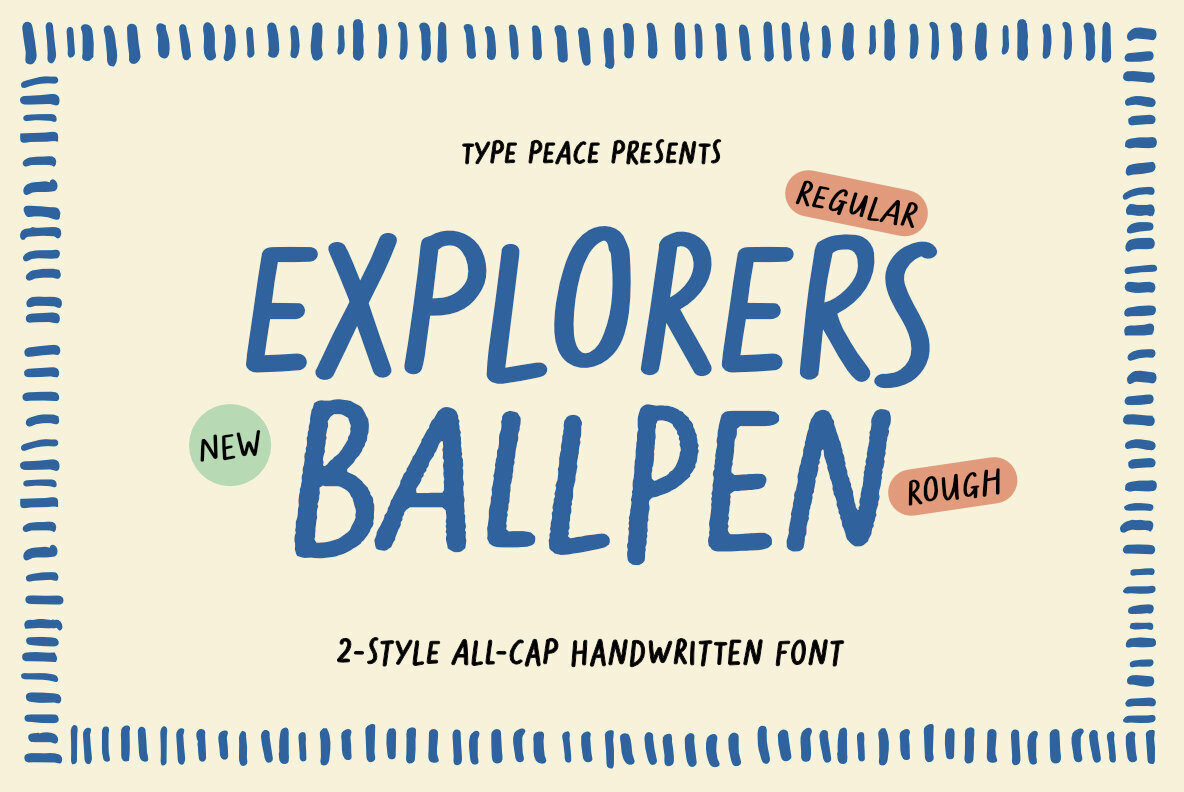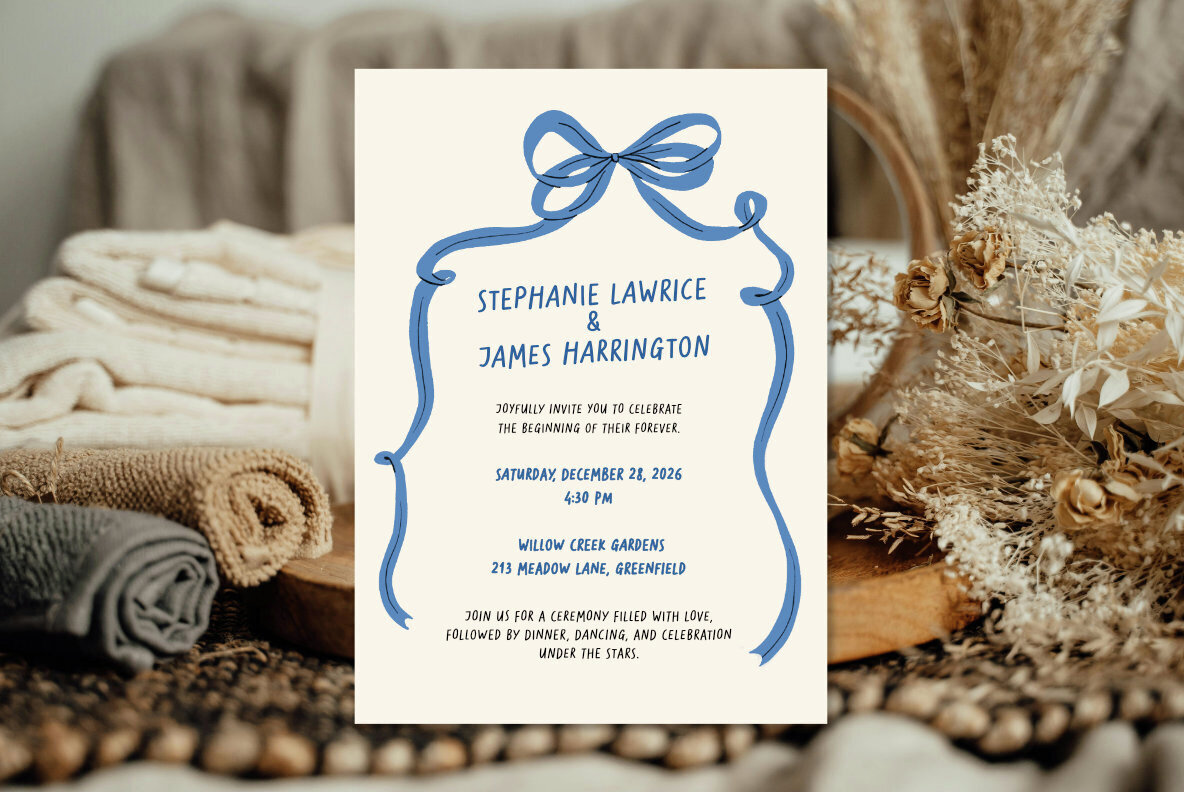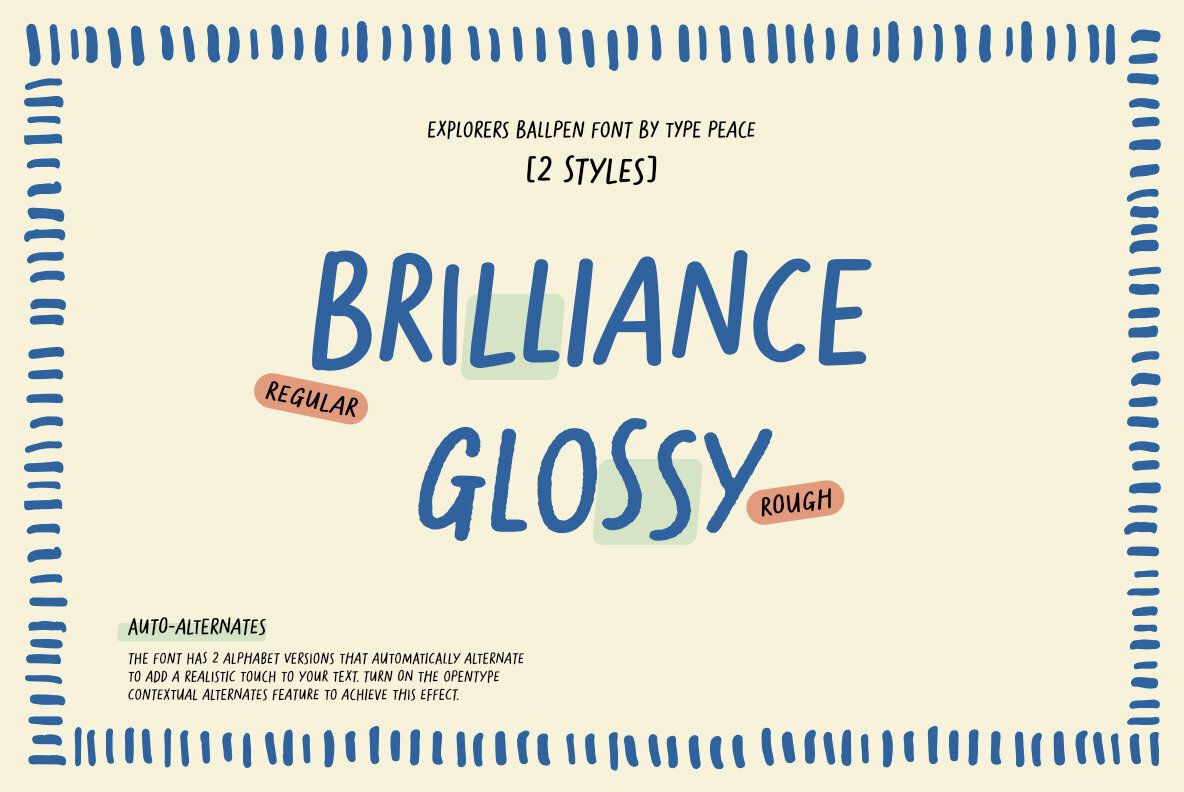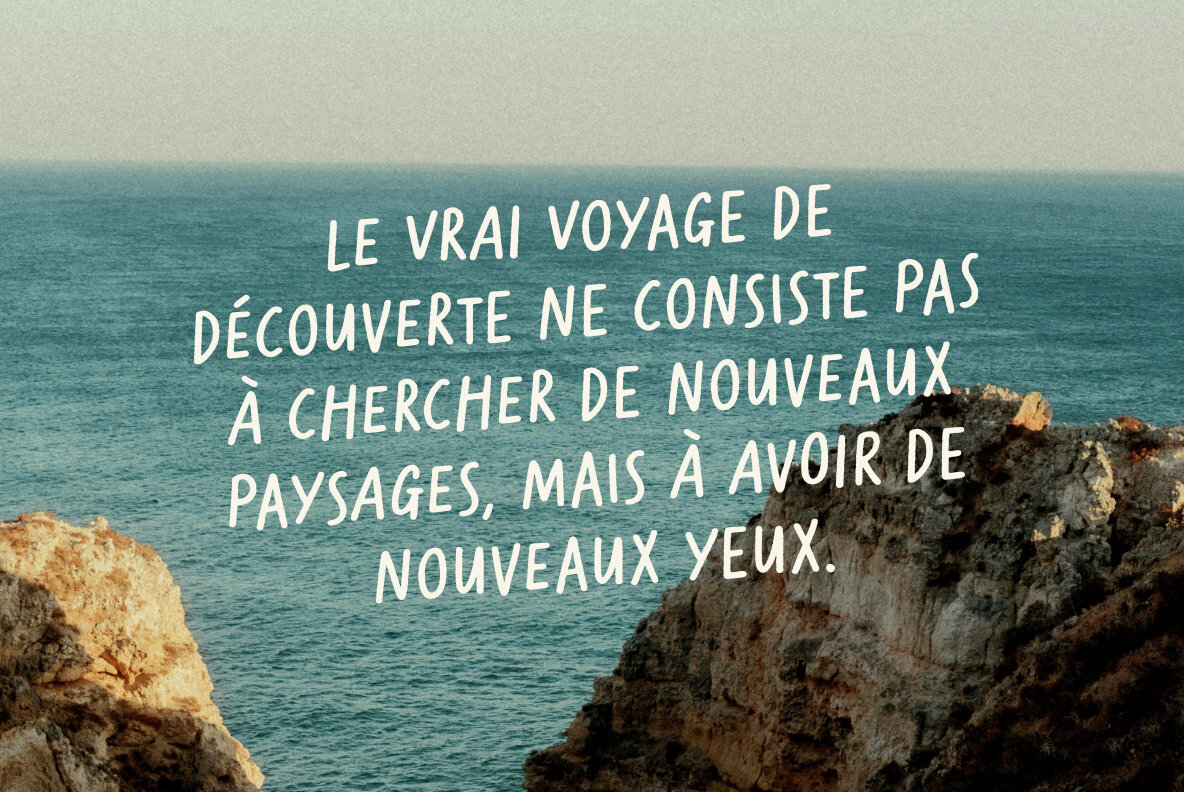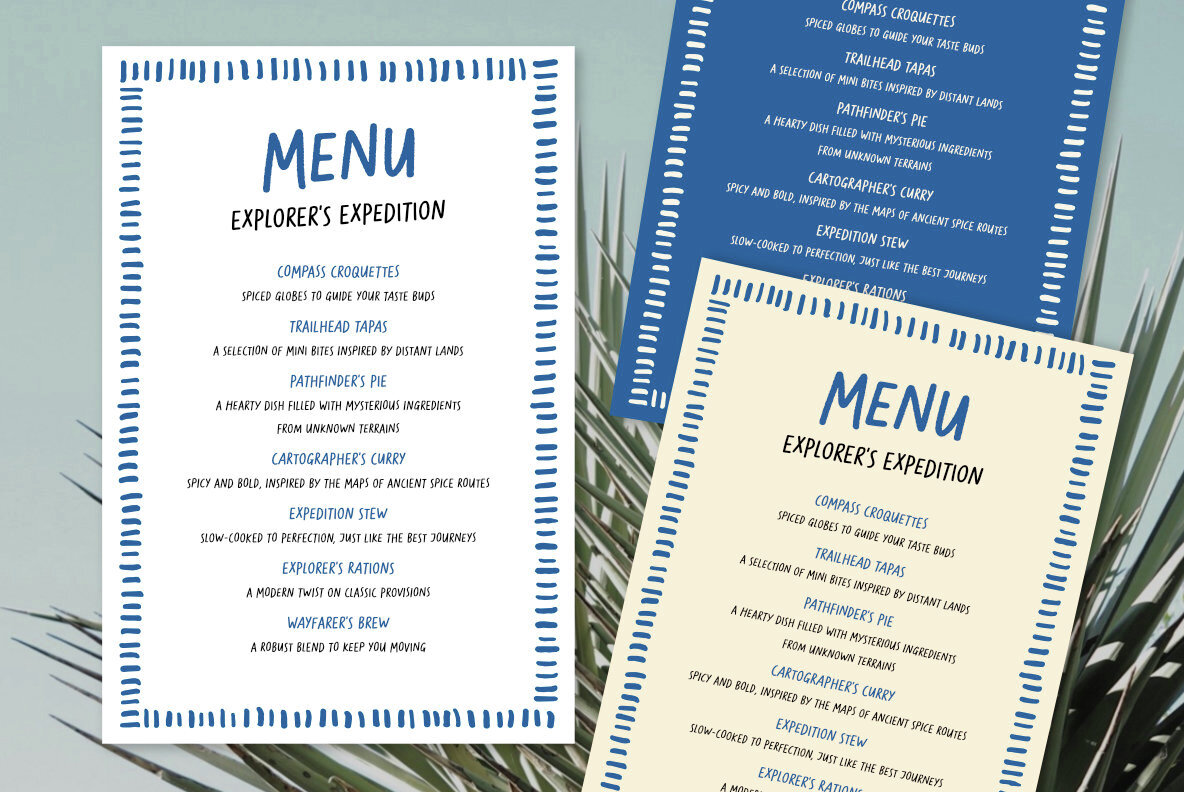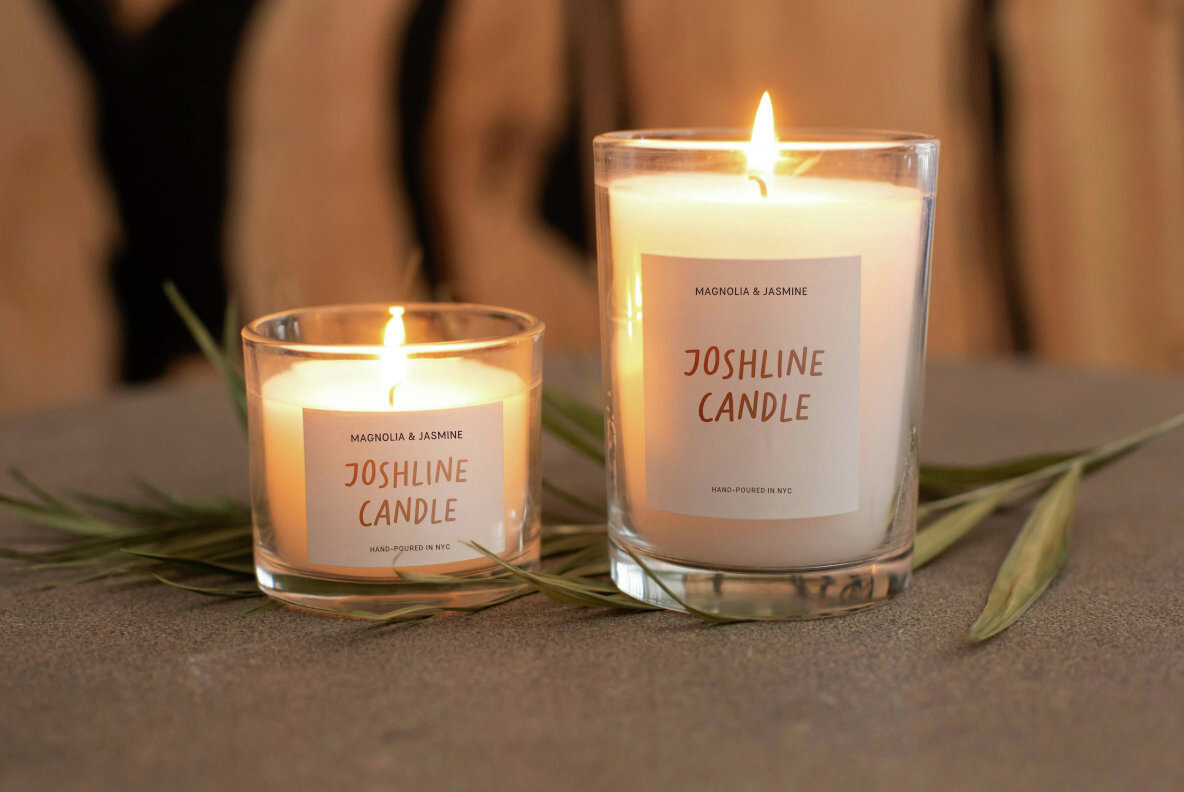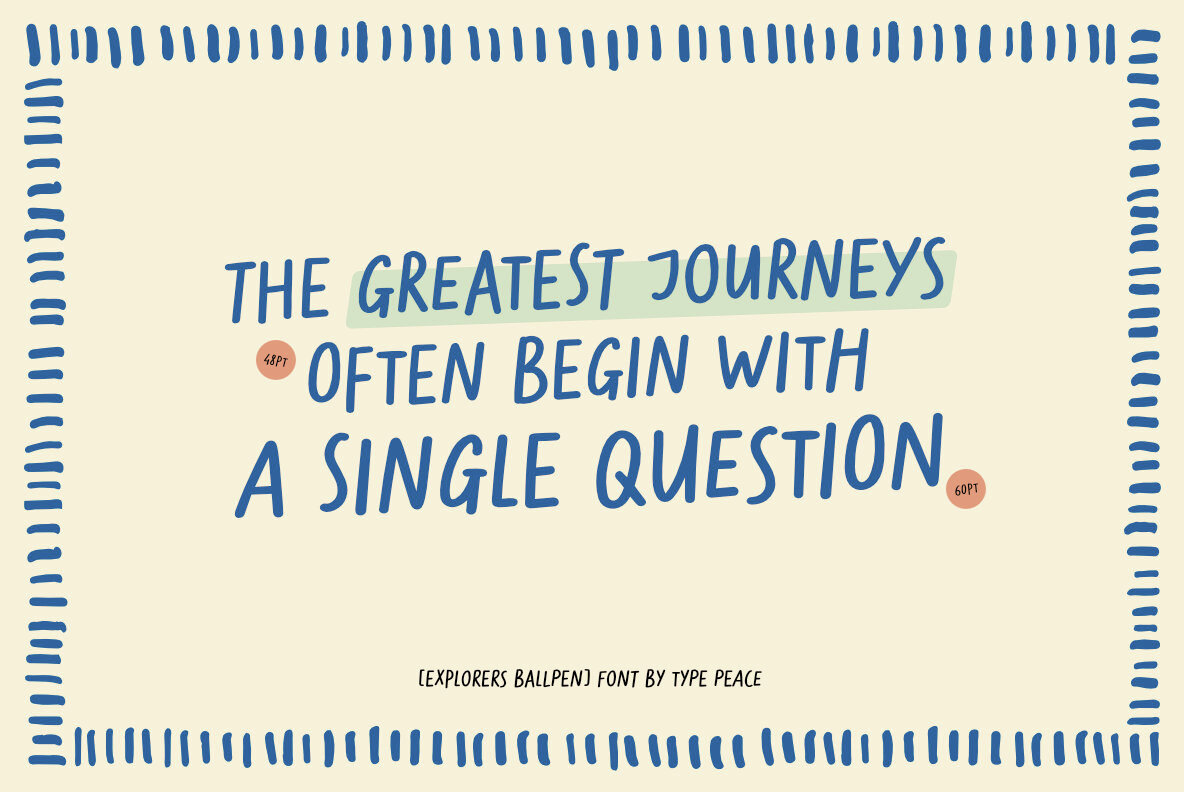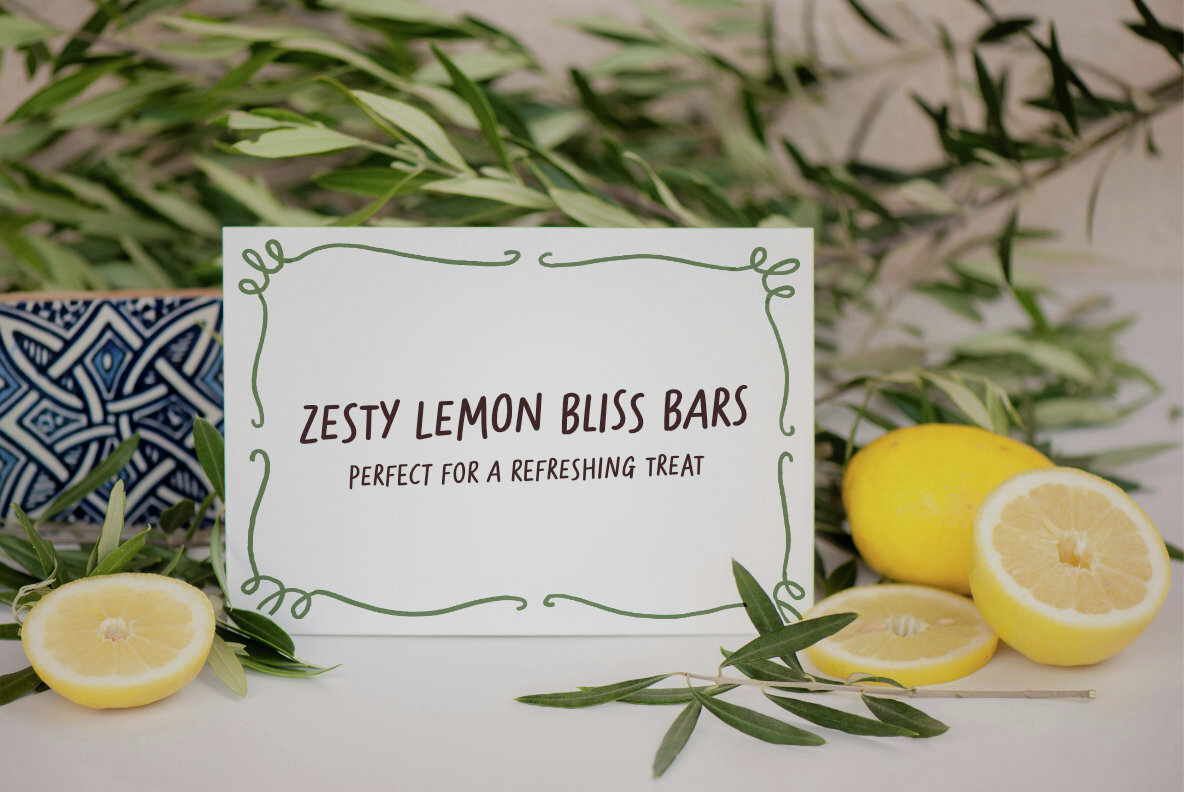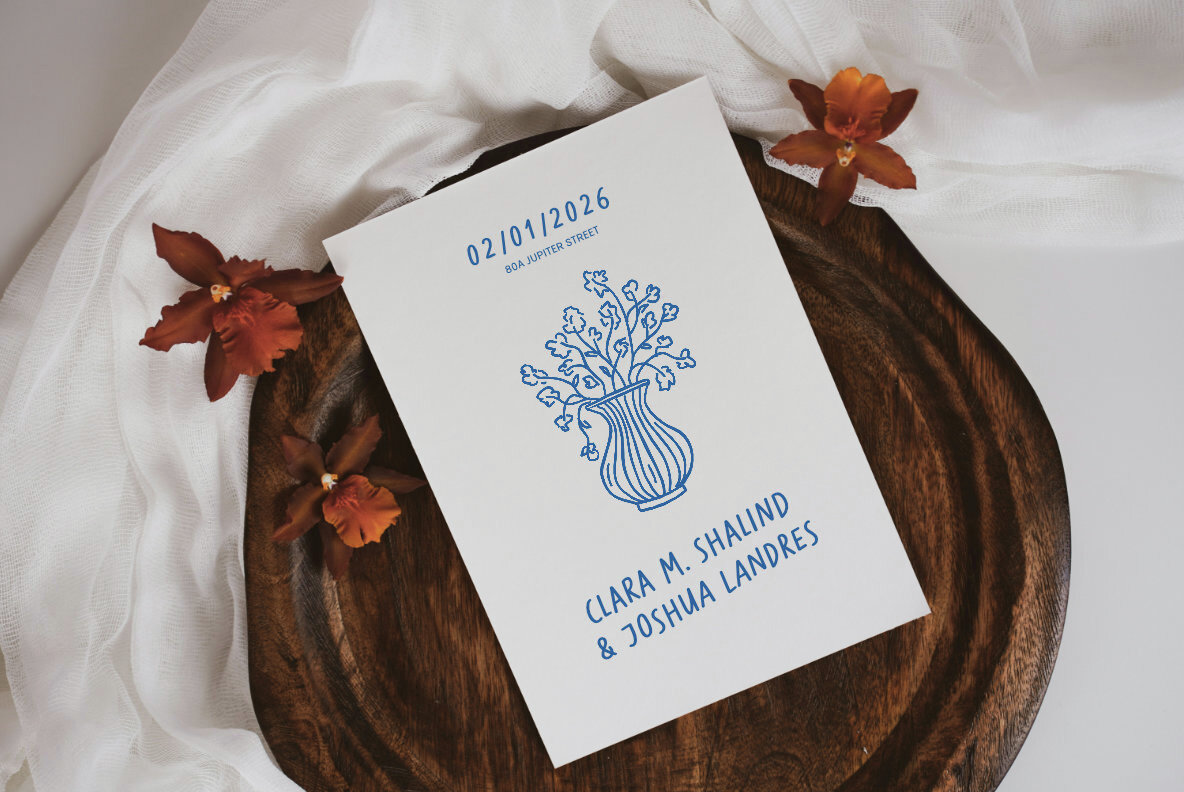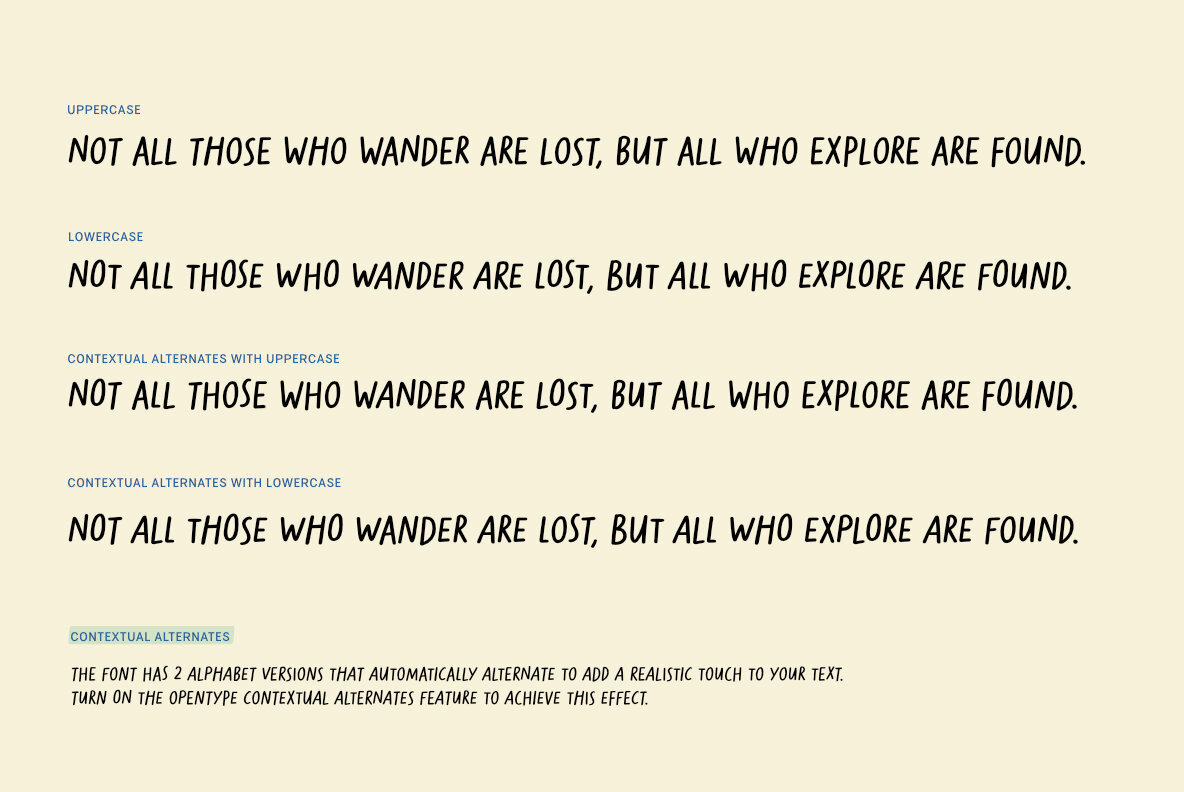
Explorers Ballpen Font
Explorers Ballpen Regular
Explorers Ballpen Rough
Explorers Ballpen is a multilingual, all-caps handwritten font that brings the charm of authentic ballpoint pen strokes to your designs. Featuring two styles - Regular and Rough - it offers versatility for both clean and textured looks. Enable the OpenType Contextual Alternates feature to alternate between different letter versions, giving your text an authentic and realistic handwritten feel. Latin English, Western European, Central European, South AmericanExplorers Ballpen: Handwritten Font with Versatile Styles